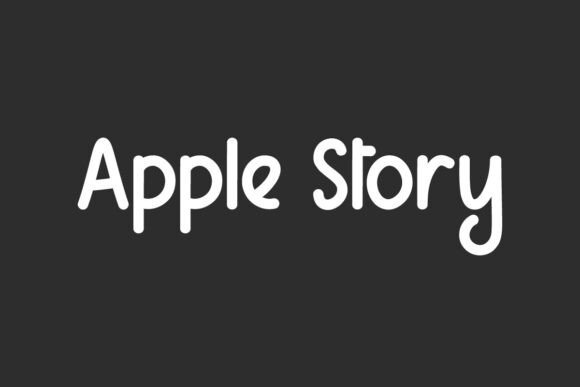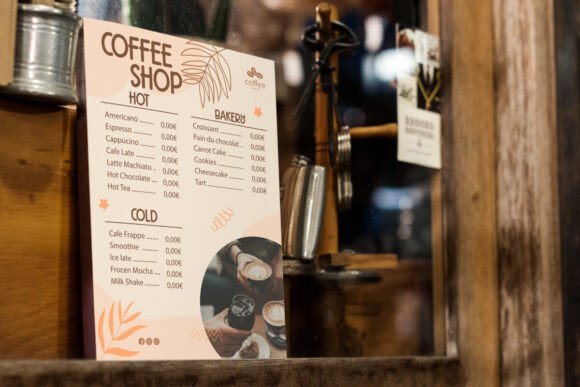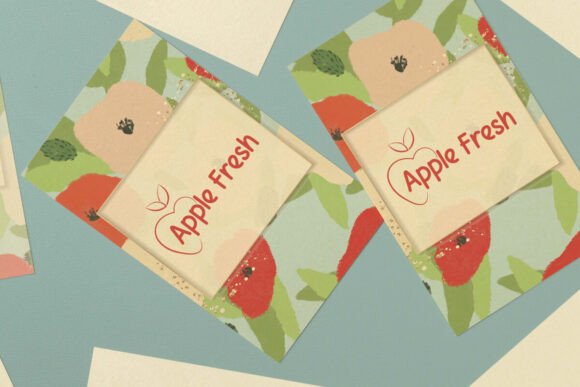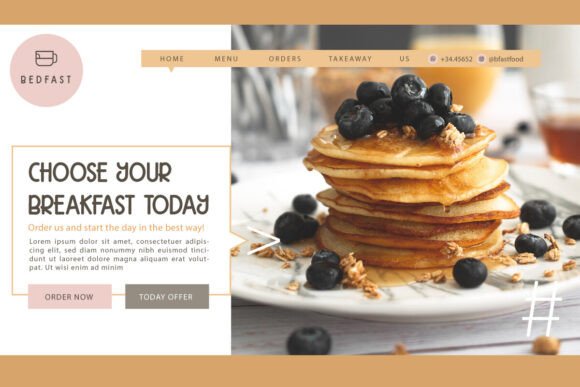
Apple Story Font: A Playful Handwritten Font for Cute Designs!
About the Apple Story Font
Welcome to the world of Apple Story Font, a typeface that will inspire your next great project. Apple Story is a cute and playful handwriting font inspired from cartoon movies and comics. This font has an adorable appearance with a slightly rounded and long font shape so it’s still stylish. This font will be suitable for many industries, such as advertisement, author and writer, bakery and pastry, cafe, handicrafts, kids stuff, printing, publishing, and more!
Apple Story Font shines in projects requiring a lighthearted and approachable feel. Ideal applications include children’s books, branding for sweet treats or cafes, playful packaging designs, and short, impactful headlines. Its charm is less effective for large amounts of body text or UI elements where readability is paramount.
Pairing Apple Story with a clean sans-serif like Open Sans for body copy creates a balanced and professional contrast. For a more whimsical feel, consider pairing it with a playful script font such as Pacifico, maintaining a consistent level of visual energy. Avoid pairing it with overly serious or geometric sans-serifs, which would clash with its hand-drawn nature.
Its core personality is undeniably cheerful and friendly, making it perfect for brands targeting a young or family-oriented audience. The slightly irregular letterforms add to its endearing and approachable character.
Apple Story Font Usage Examples
Apple Story Font Example